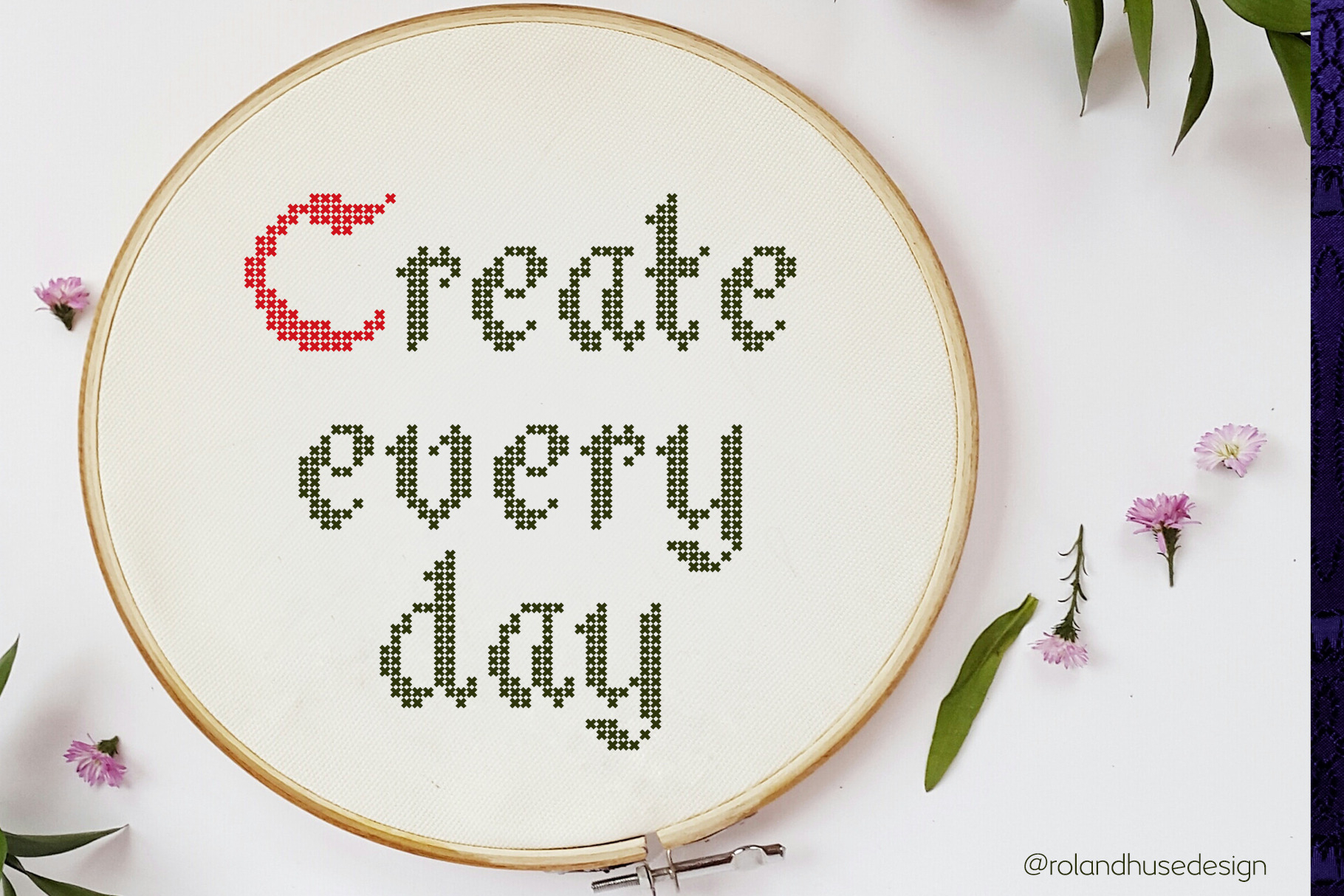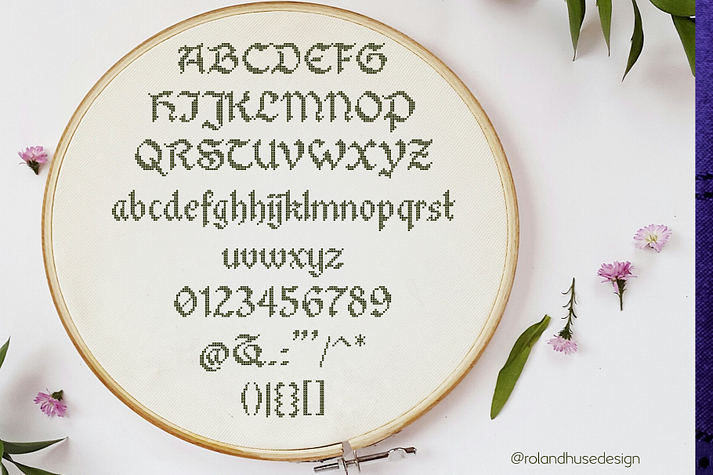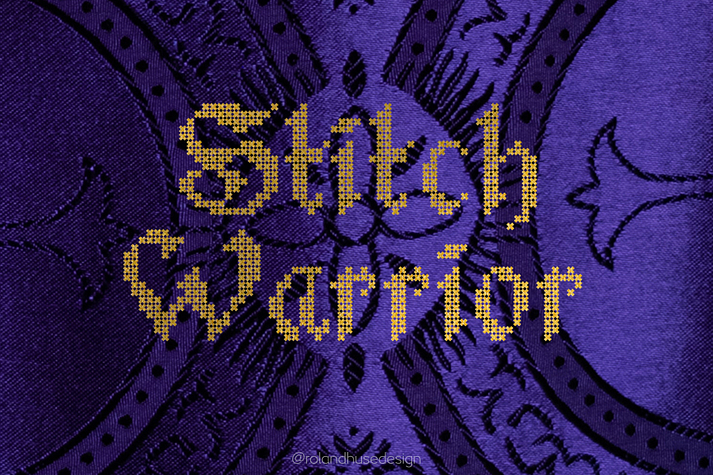
Stitch Warrior
Stitch Warrior is a font family published by Fonts by Roland Hüse.
This is a Gothic style font made specifically to represent cross stitch look.
Each letter consists of x es as for pixel placeholders and it’s perfectly edited to fit to your Embroidery look designs!